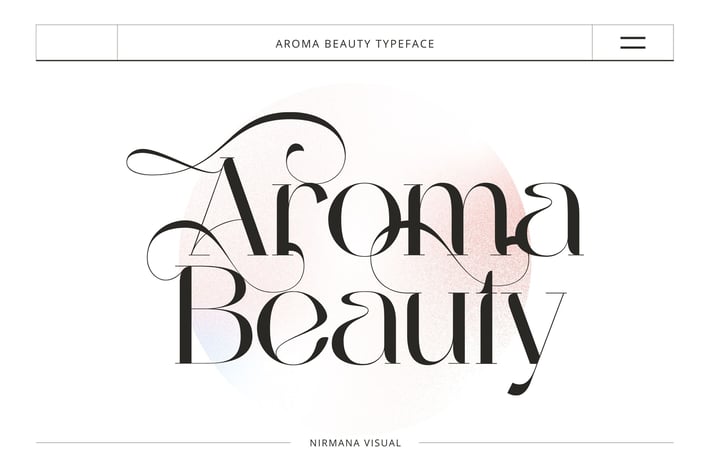
Aroma Beauty - Wedding Font
Aroma Beauty is a luxury typeface, full set of lowercase and uppercase letters, numerals and punctuation, multilingual symbols.
Very suitable for the title, logo, typography, clothes, magazines, brochures, packaging and much more for your design needs, making your designs more modern and professional.